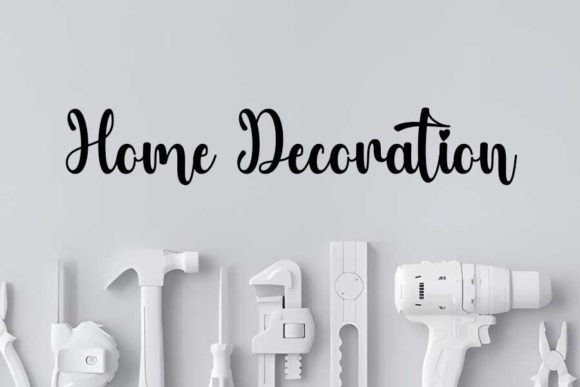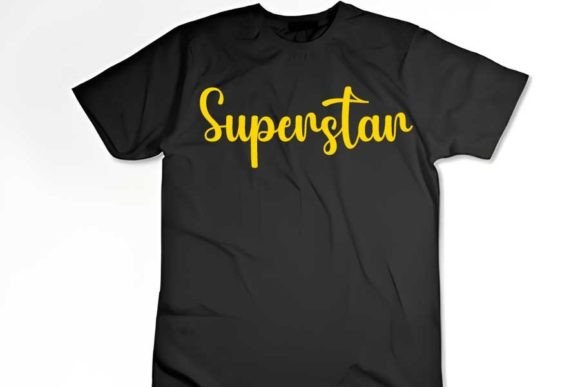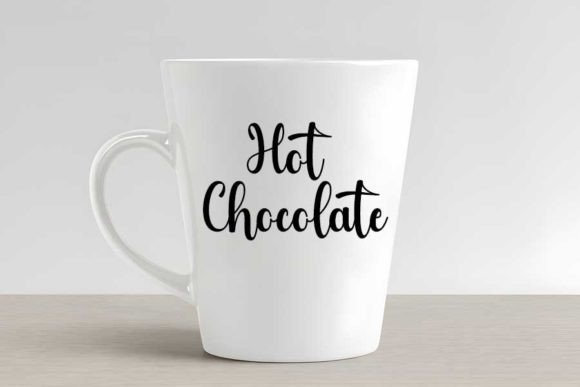
Introduction to Sincerelly Font
Sincerelly feels equally charming and elegant.
It looks stunning on wedding invitations, thank you cards, quotes, greeting cards, logos, business cards, and every other design which needs a handwritten touch .